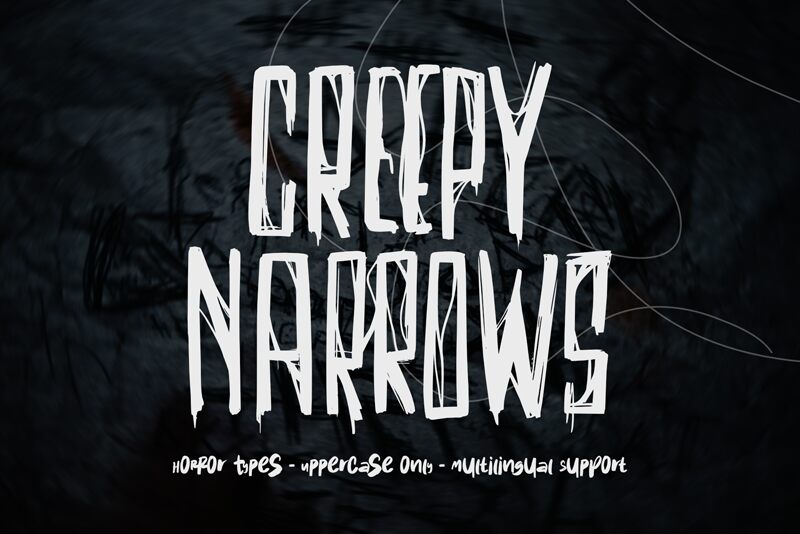
Creepy Narrows font, designed by Horror Font, captivates with its distinctly unsettling aesthetic. This display typeface stands out with its dramatic, eerie design that exudes a chilling charm. Its condensed structure lends an air of urgency and intensity, perfect for drawing attention in any horror-themed project.
The sharp edges and jagged forms create a menacing vibe, making it ideal for posters, book covers, and event marketing aimed at thrilling audiences. Whether used in branding for haunted attractions or evoking atmosphere in digital media, Creepy Narrows encapsulates the essence of the macabre. Its visual appeal makes it a striking choice that adds depth to designs meant to intrigue or unsettle viewers.